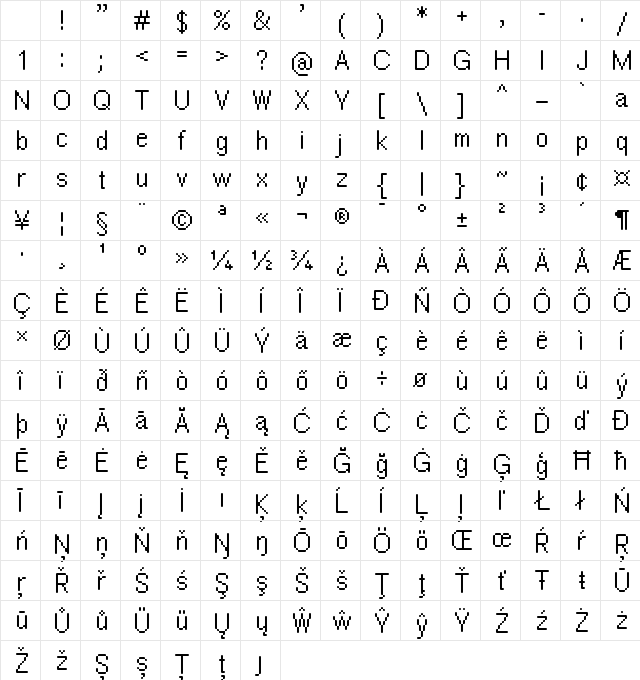
FK Raster Grotesk takes a clean, functional approach - its unadorned letterforms prioritise legibility and work reliably across screen and print environments.
Font Pairing: Works well alongside a characterful serif or display font that can carry the expressive load while FK Raster Grotesk handles the functional copy.
Pro Tip: Use FK Raster Grotesk for UI labels, navigation, and short-form body copy where clean legibility is the priority.